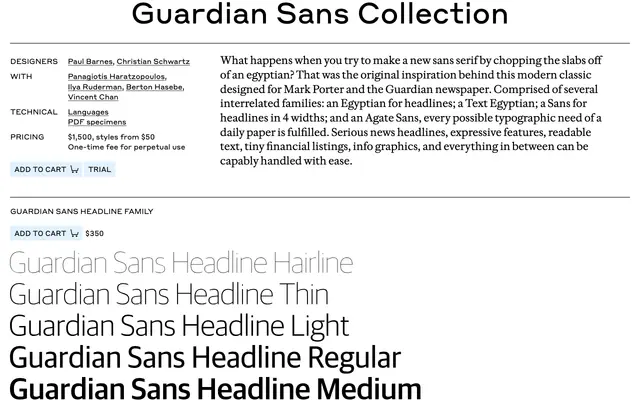
Guardian Sans
Commercial Type · Paul Barnes, Christian Schwartz
The sans half of the Guardian newspaper system, with Headline, Condensed Headline and Agate widths covering everything from features to financial listings.
An editorial sans serif designed by Paul Barnes and Christian Schwartz for Mark Porter's Guardian redesign, with Berton Hasebe and Vincent Chan on the Agate and Panagiotis Haratzopoulos and Ilya Ruderman on the Greek and Cyrillic. Guardian Sans spans Headline and Headline Condensed widths for display, plus Agate Sans and Agate Duplex for tabular and financial settings, with weights from Hairline up to Ultra and matching italics. Built as a system alongside Guardian Egyptian, it covers serious news headlines, features, long-form text and tightly typeset listings.
Commercial Type position Guardian Sans as the sans half of the Guardian newspaper system, descended from an Egyptian skeleton. The family covers Headline widths from Condensed to standard, Text, and an Agate Sans, with a Duplex pairing for tabular and listings use.